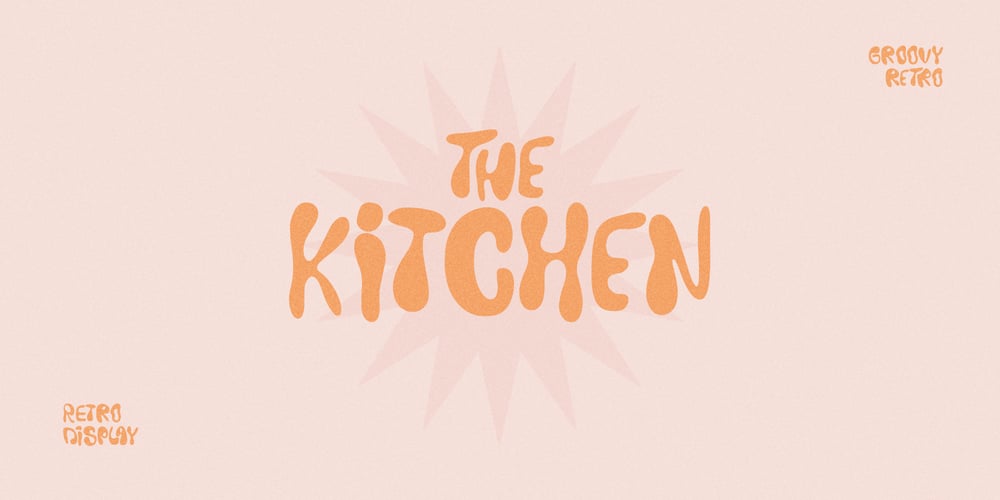
The Kitchen Font Family was designed by Dmitrii Chirkov and published by Supfonts. The Kitchen contains 1 styles and family package options. The Kitchen is a groovy display with vintage charm, fashionable appearance with a touch of retroFont is an open type with clean shapes and precise kerning. It includes ligatures encoded by the PUA.Language support: All European languagesDon’t forget to subscribe so you don’t miss out on the new awesome fontsDima